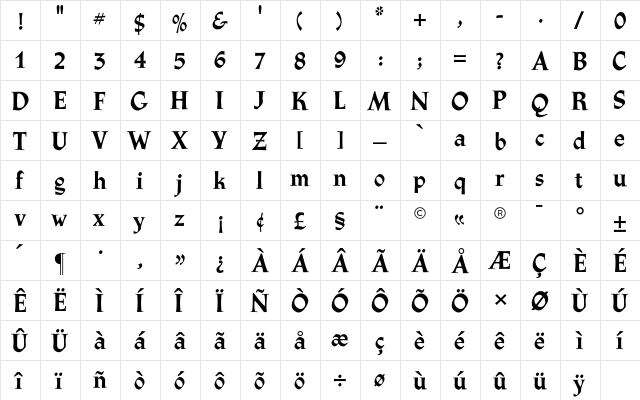
Athenaeum CG Bold
| Foundry | Agfa Corporation |
Design Context for Athenaeum CG Typeface
Athenaeum CG takes a measured approach to typography — its balanced proportions and neutral character make it a reliable workhorse for both digital and print work. The heavy weight commands attention and anchors typographic hierarchies.